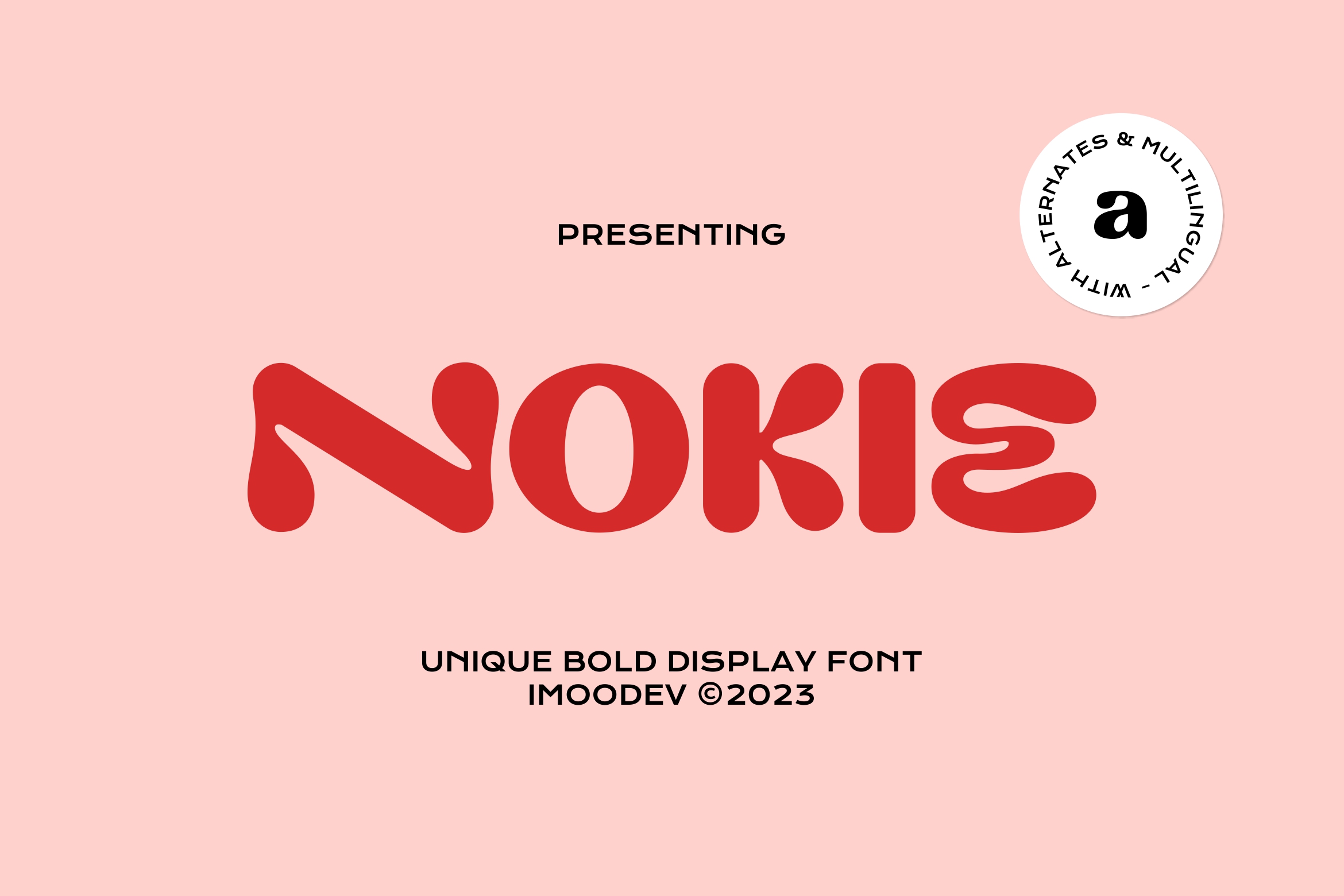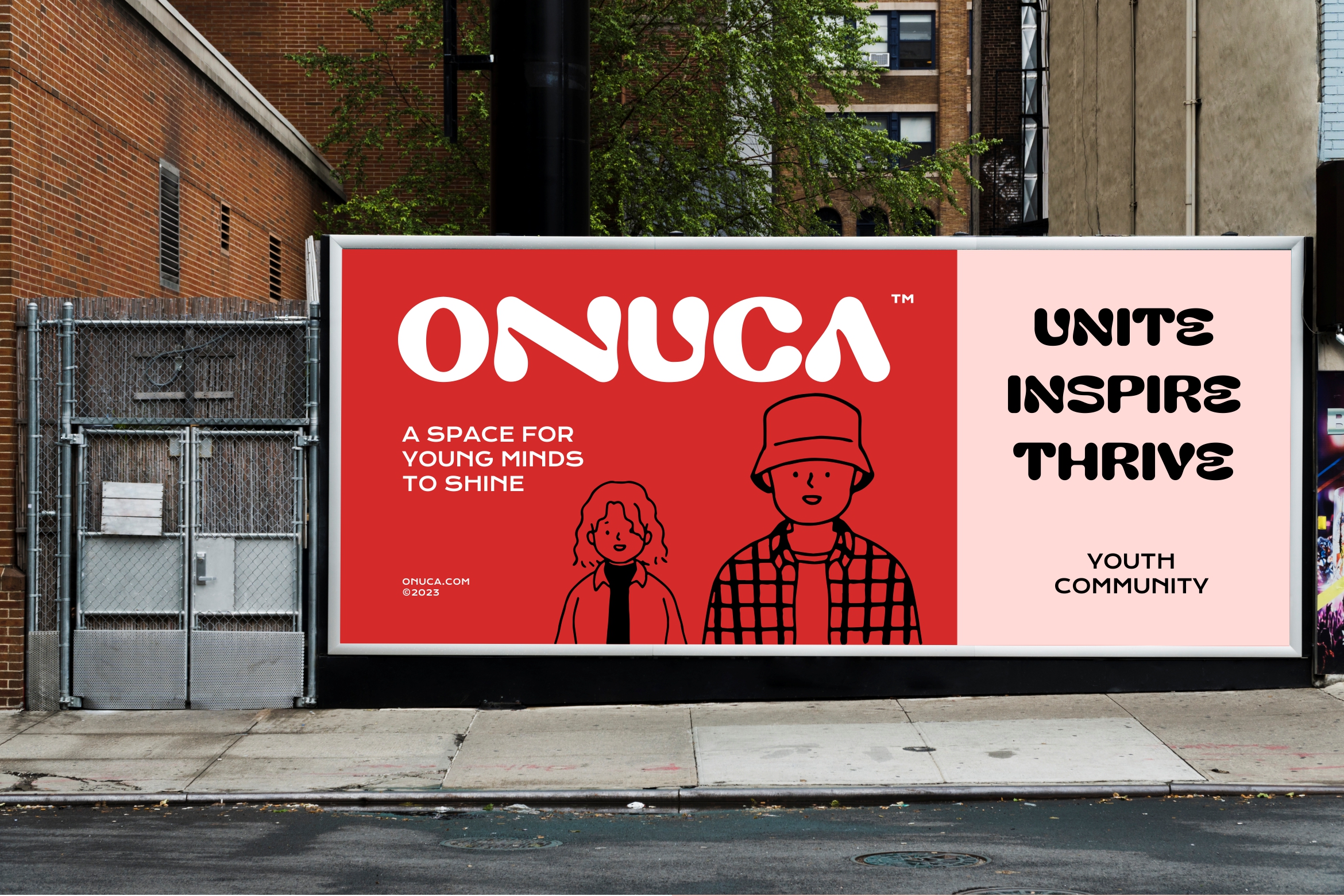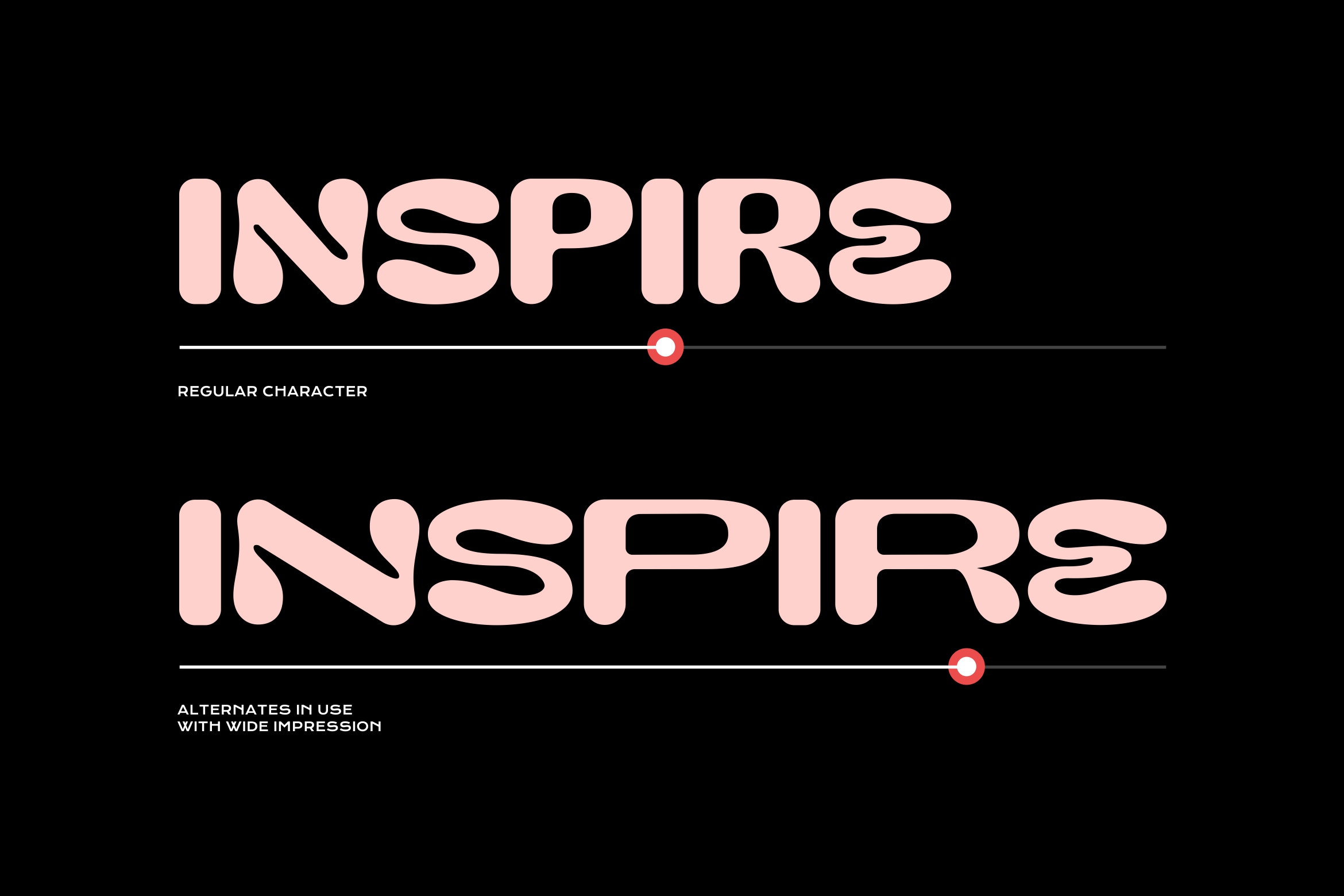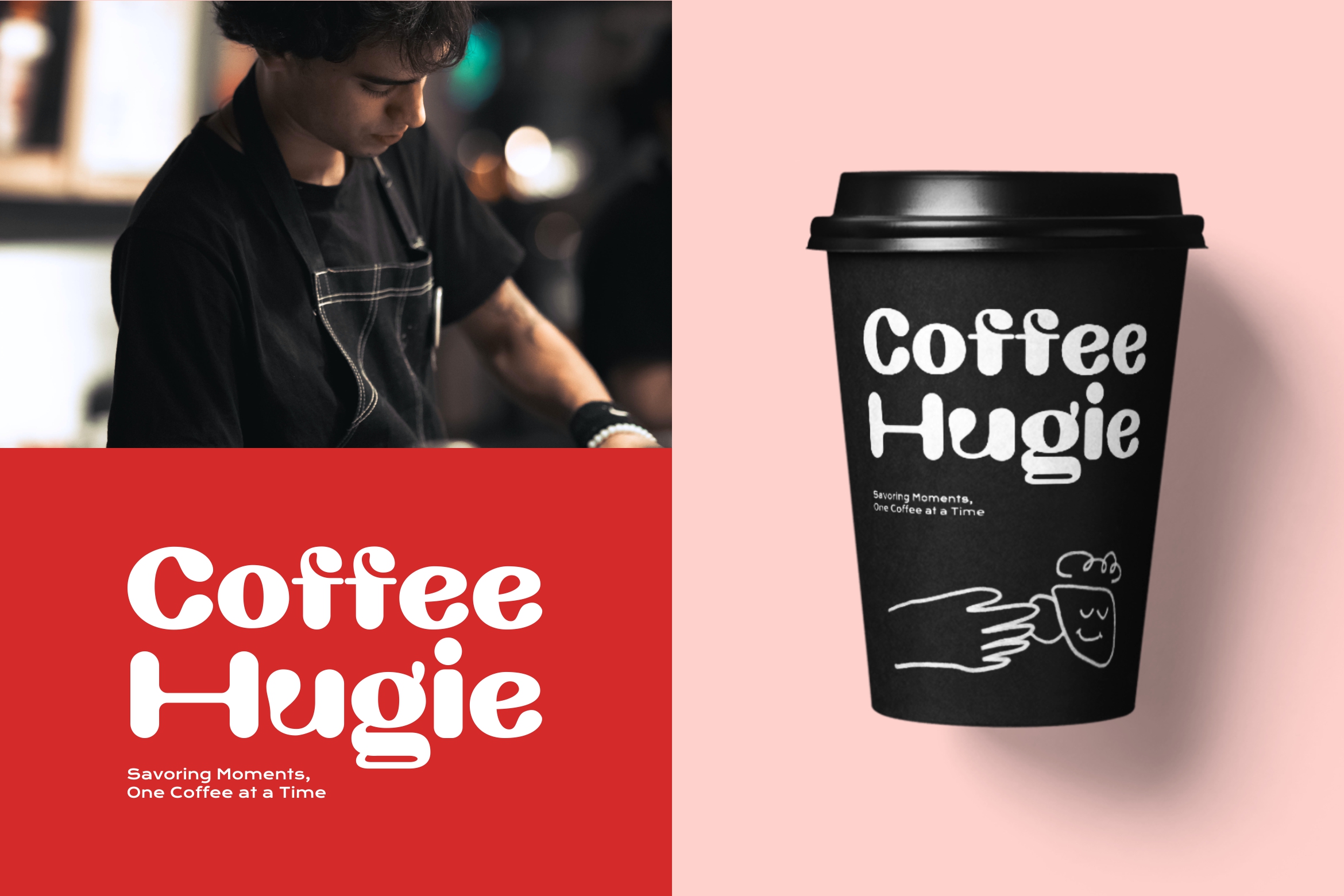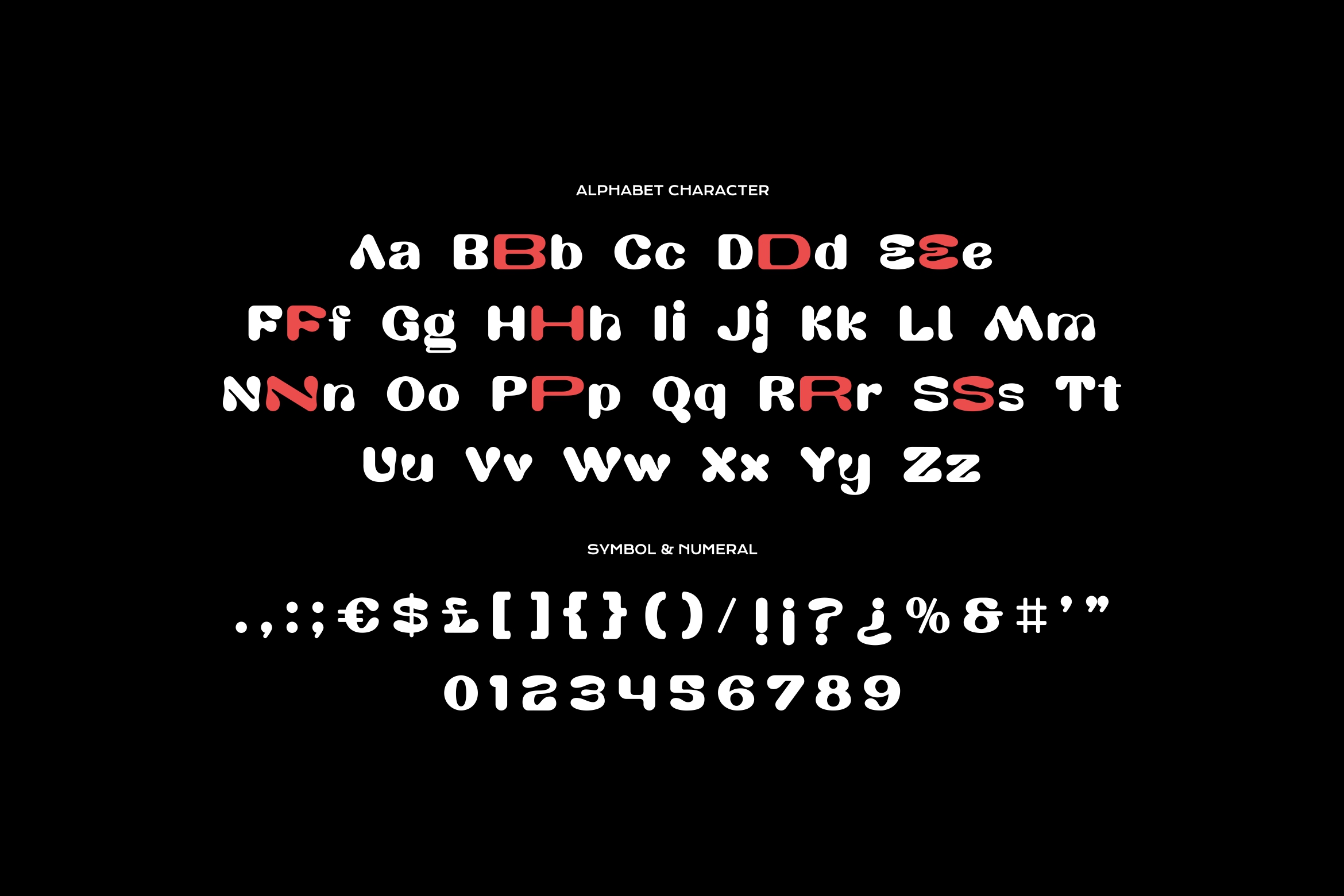
Nokie is a unique bold display font with playful, fluid curves that bring a fresh and modern character to any design. Its rounded and organic letterforms give it a friendly yet distinctive look, making it perfect for branding, posters, packaging, and creative projects that aim to stand out. The typeface balances boldness with a fun aesthetic, making it highly appealing for youth-oriented, lifestyle, and creative industries.
Complete with alternates, ligatures, symbols, numerals, and multilingual support, Nokie offers flexibility for designers to craft custom and expressive layouts. Whether for logos, editorial headlines, product design, or social media graphics, this font captures attention while maintaining readability. Its combination of bold shapes and smooth curves ensures your typography communicates both creativity and confidence.
Nokie